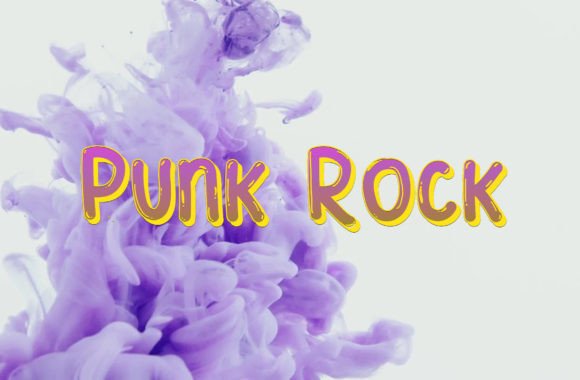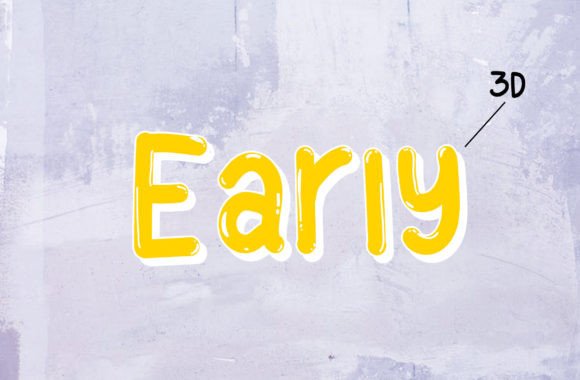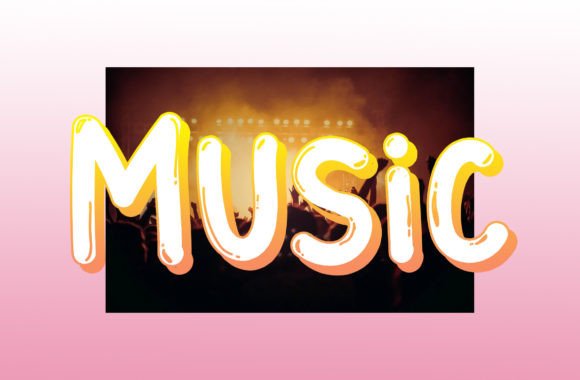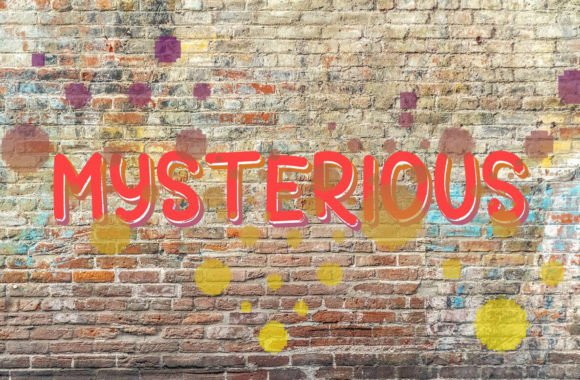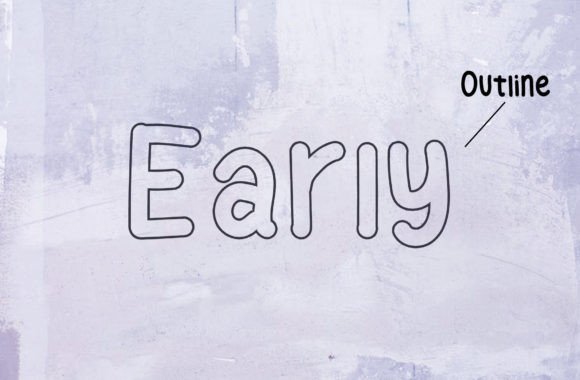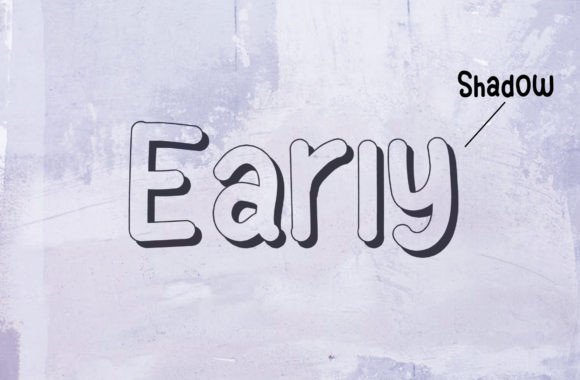
Introducing Early Font: The Cheerful and Bold Display Font You Need
Are you tired of using the same old fonts in your designs? Do you want to add a touch of fun and authenticity to your creations? Look no further than Early Font, a cheerful, bold, and friendly display font that’s perfect for making your designs stand out.
What is Early Font?
Early Font is a display font that embodies the spirit of fun and playfulness. Its bold and friendly design makes it perfect for use in a variety of design projects, from posters and flyers to social media graphics and website headers. With its unique and eye-catching style, Early Font is sure to grab the attention of your audience and leave a lasting impression.
Key Features of Early Font
- Cheerful and Playful Design: Early Font has a fun and lively design that’s perfect for creating designs that are full of energy and personality.
- Bold and Friendly Style: The font’s bold and friendly style makes it perfect for use in display text, such as headings and titles.
- Highly Versatile: Early Font can be used in a wide range of design projects, from print materials to digital designs.
- Easily Readable: Despite its bold design, Early Font is highly readable, even at smaller sizes.
Why Choose Early Font?
There are many reasons why Early Font is a great choice for designers and crafters. Here are just a few:
- Adds a Touch of Fun and Authenticity: Early Font’s playful design adds a touch of fun and authenticity to any design project.
- Perfect for Display Text: The font’s bold and friendly style makes it perfect for use in display text, such as headings and titles.
- Great for Branding and Marketing Materials: Early Font is a great choice for creating branding and marketing materials, such as logos, business cards, and brochures.
How to Use Early Font in Your Designs
Using Early Font in your designs is easy. Here are a few tips to get you started:
- Use it as a Display Font: Early Font is perfect for use in display text, such as headings and titles.
- Pair it with Other Fonts: Early Font can be paired with other fonts to create a unique and eye-catching design.
- Experiment with Different Sizes and Colors: Don’t be afraid to experiment with different sizes and colors to find the perfect look for your design.
Tips and Tricks for Getting the Most Out of Early Font
Here are a few tips and tricks for getting the most out of Early Font:
- Use it to Create a Focal Point: Use Early Font to create a focal point in your design, drawing the viewer’s eye to the most important information.
- Make it Bold and Bright: Don’t be afraid to make Early Font bold and bright, using colors and sizes to create a eye-catching design.
- Experiment with Different Effects: Try experimenting with different effects, such as shadows and outlines, to add depth and interest to your design.
Early Font is a cheerful, bold, and friendly display font that’s perfect for making your designs stand out. With its unique and eye-catching style, Early Font is sure to grab the attention of your audience and leave a lasting impression. Whether you’re a designer or crafter, Early Font is a great choice for adding a touch of fun and authenticity to your creations.